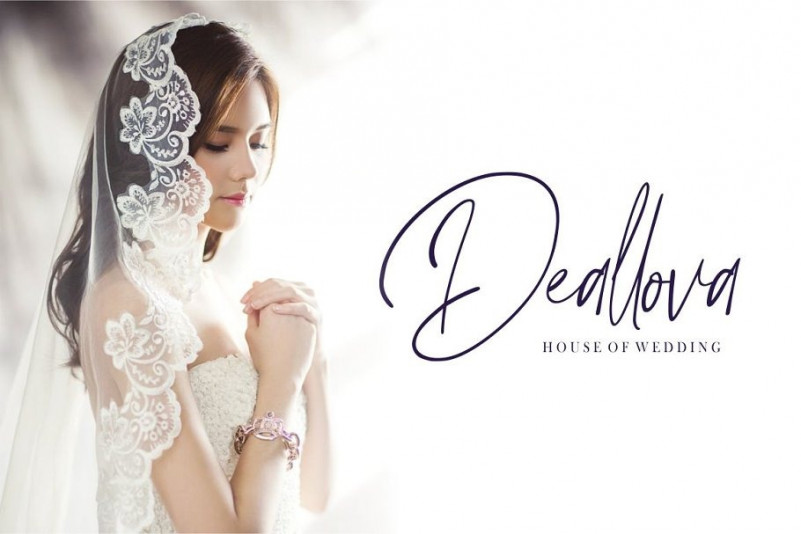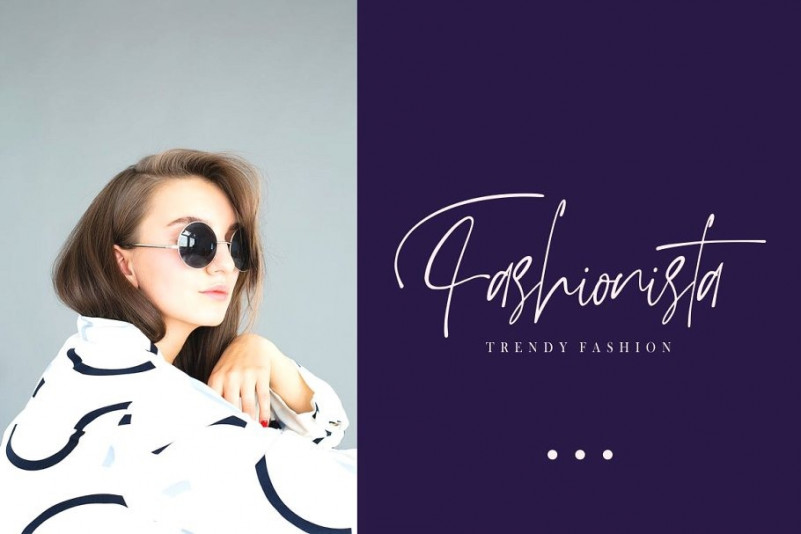
Buffalow Script Font
Buffalow Font , an original hand lettering font by NihStudio. Try the font by typing your own text below. Please note that the test font below is a demo file, so some specimens/ characters will not show up.
The theme style of the Buffalow is handwriting, luxury, glamour, gold, vintage, stylish, sophisticated and classic brush style. The font will be match for this typeface: wedding, events, real estate, architect, law firm, florist, gardening, makeup artist, travel, hotel, musician etc